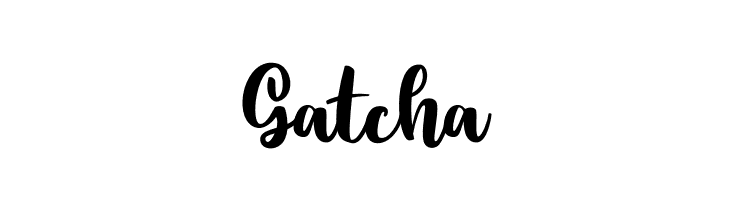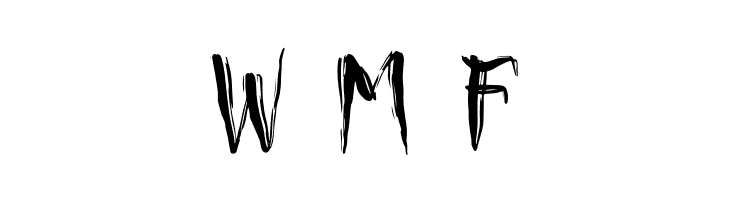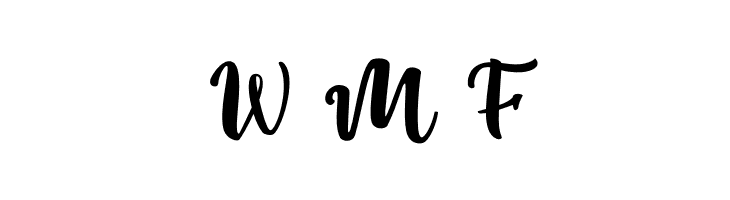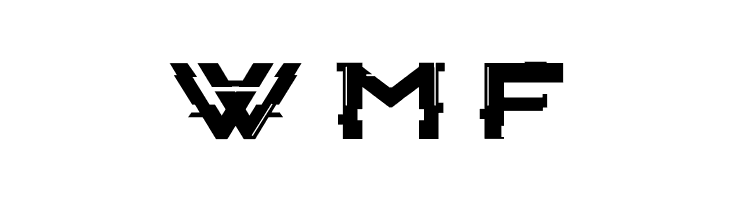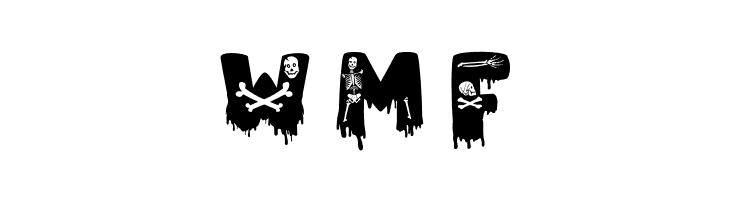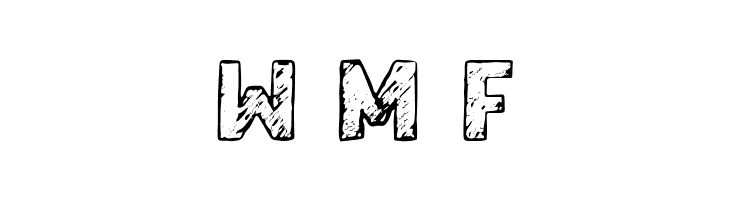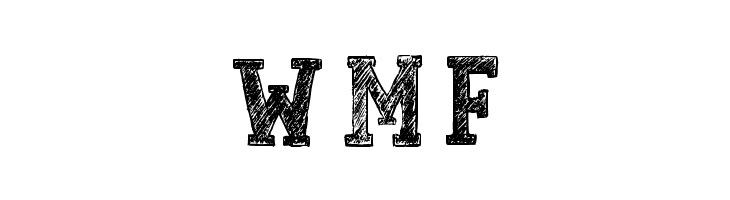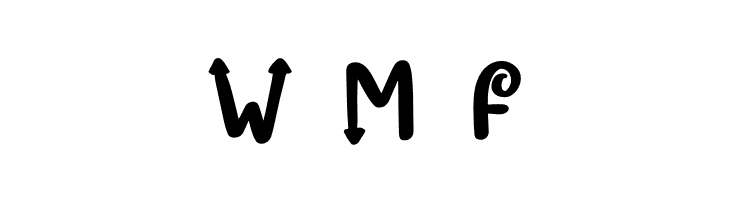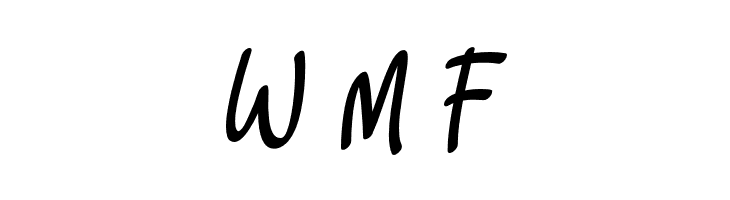
A playful, hand-drawn font with bold, rounded characters and diagonal hatching.
A bold, playful script font with flowing, cursive letterforms.
A glitch-inspired, bold, and angular font with a digital, futuristic style.
A spooky, Halloween-themed decorative font with dripping effects and playful elements.
A bold, sketch-style font with a hand-drawn, textured appearance.
A hand-drawn, sketch-style font with textured, artistic characters.
A playful, hand-drawn font with smooth, rounded edges and a casual style.
A whimsical and playful font with curly, looping strokes and bold, rounded characters.
A playful, hand-drawn font with a sketch-like, informal style.
A bold, jagged font with a Halloween-inspired, carved pumpkin look.